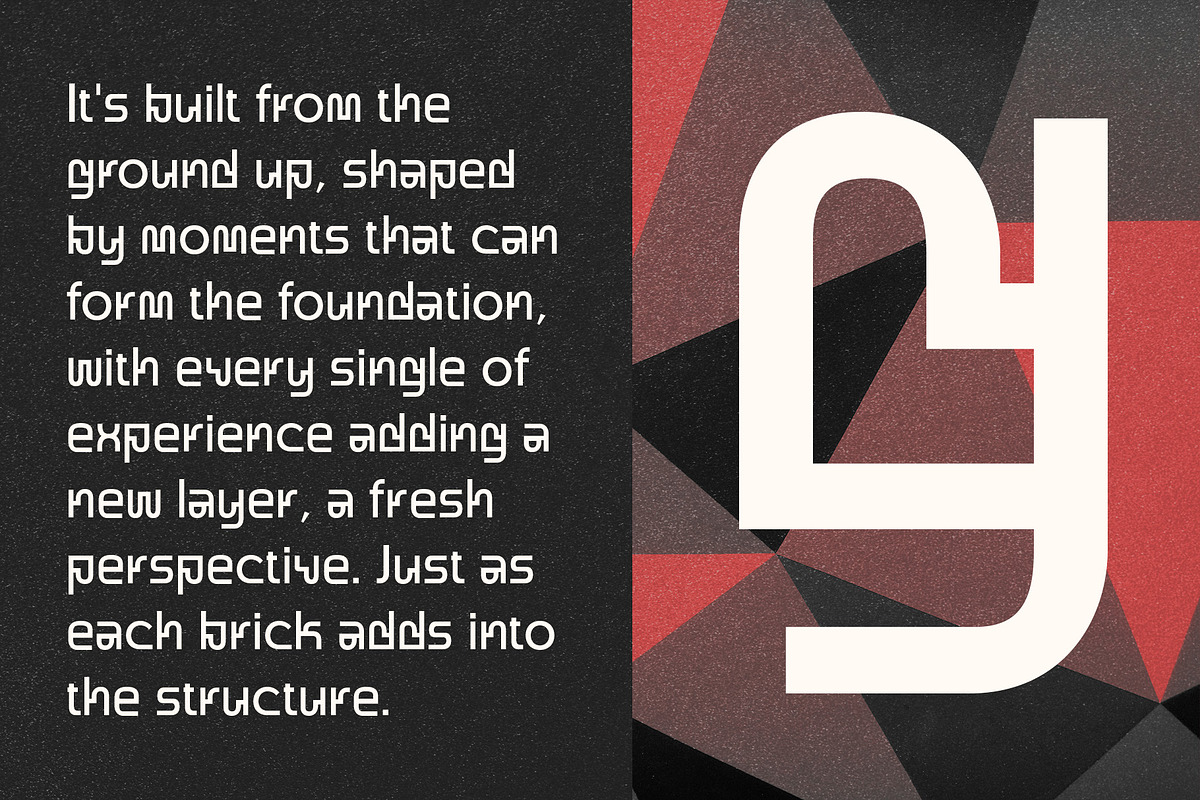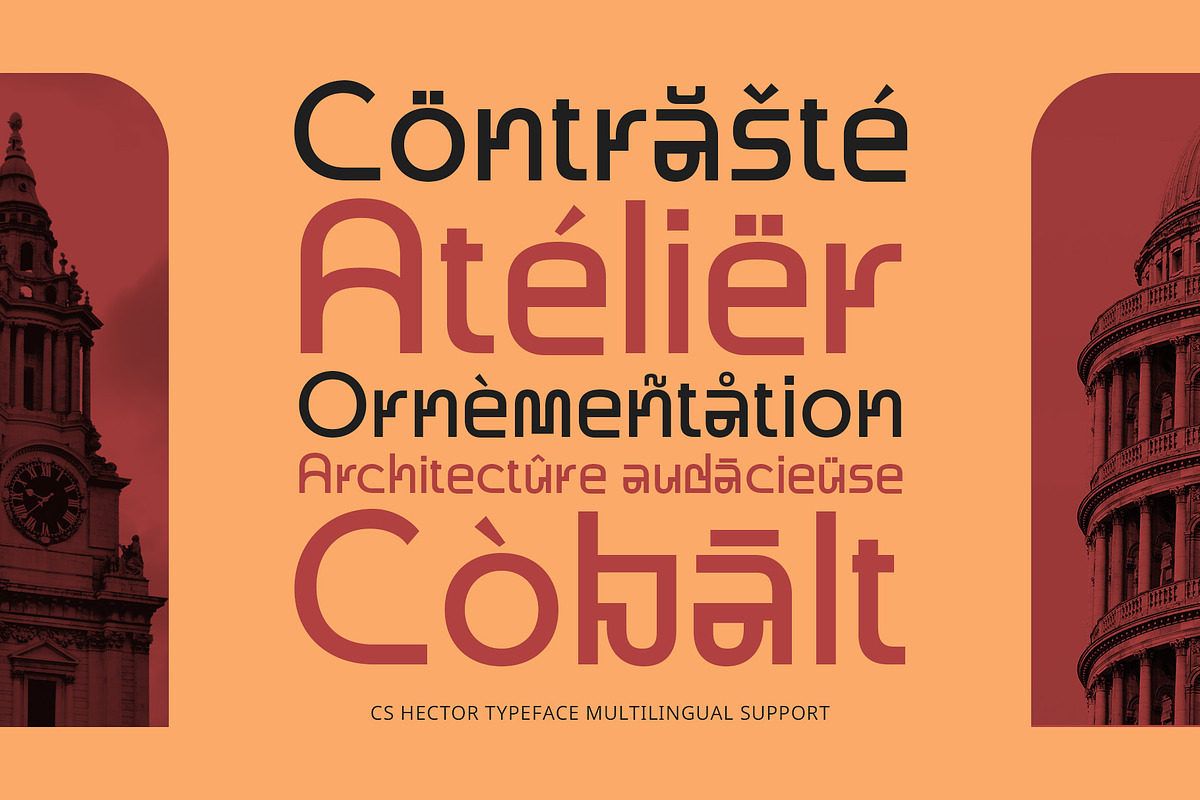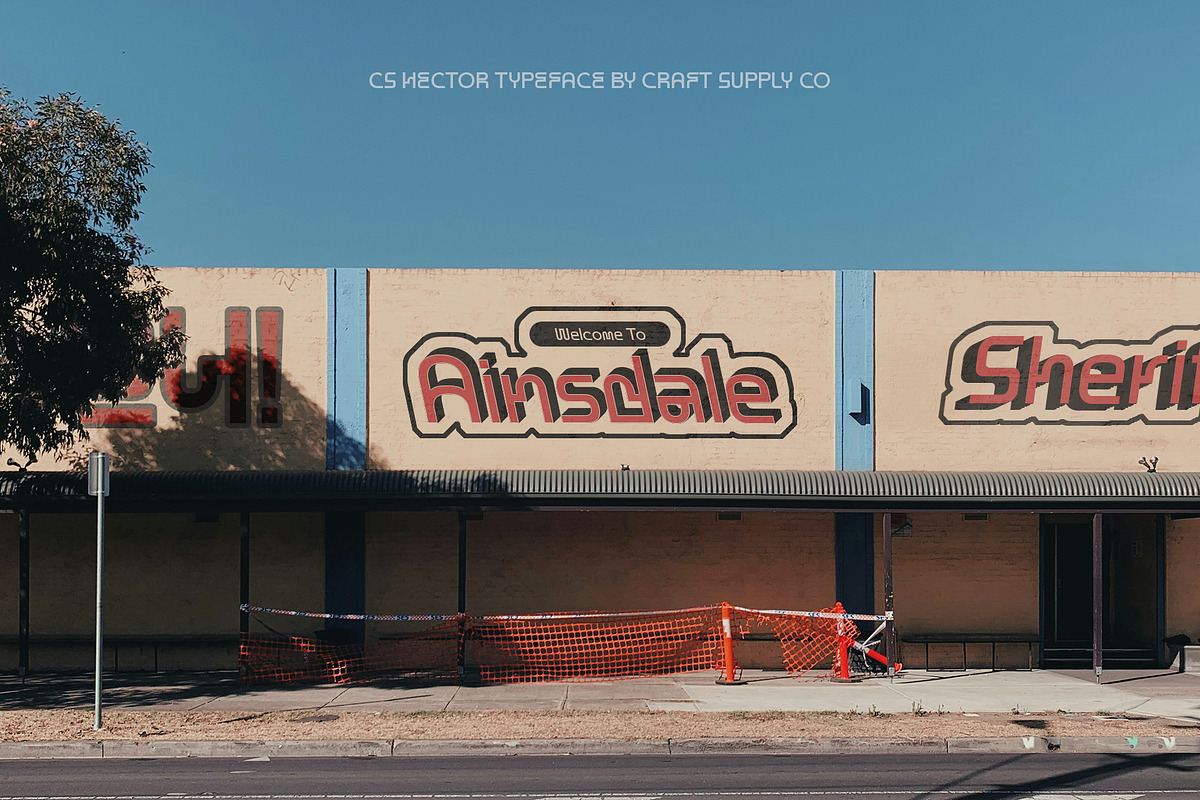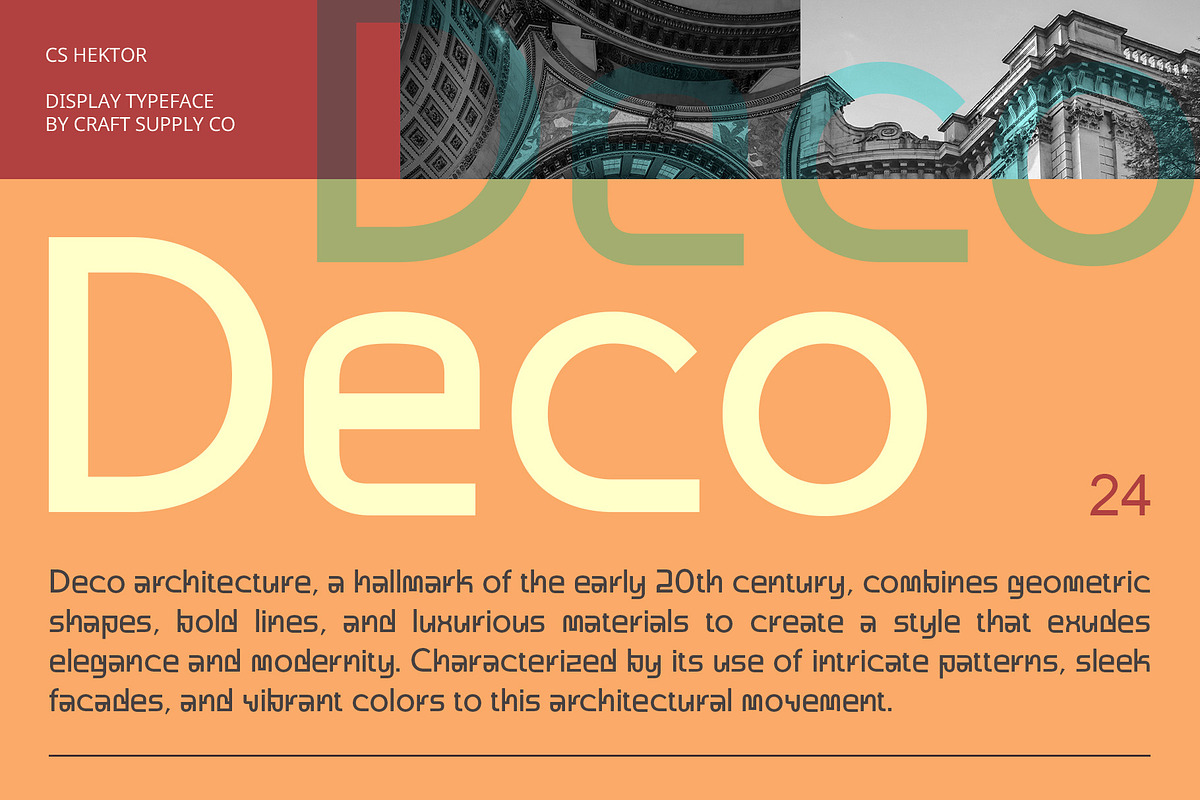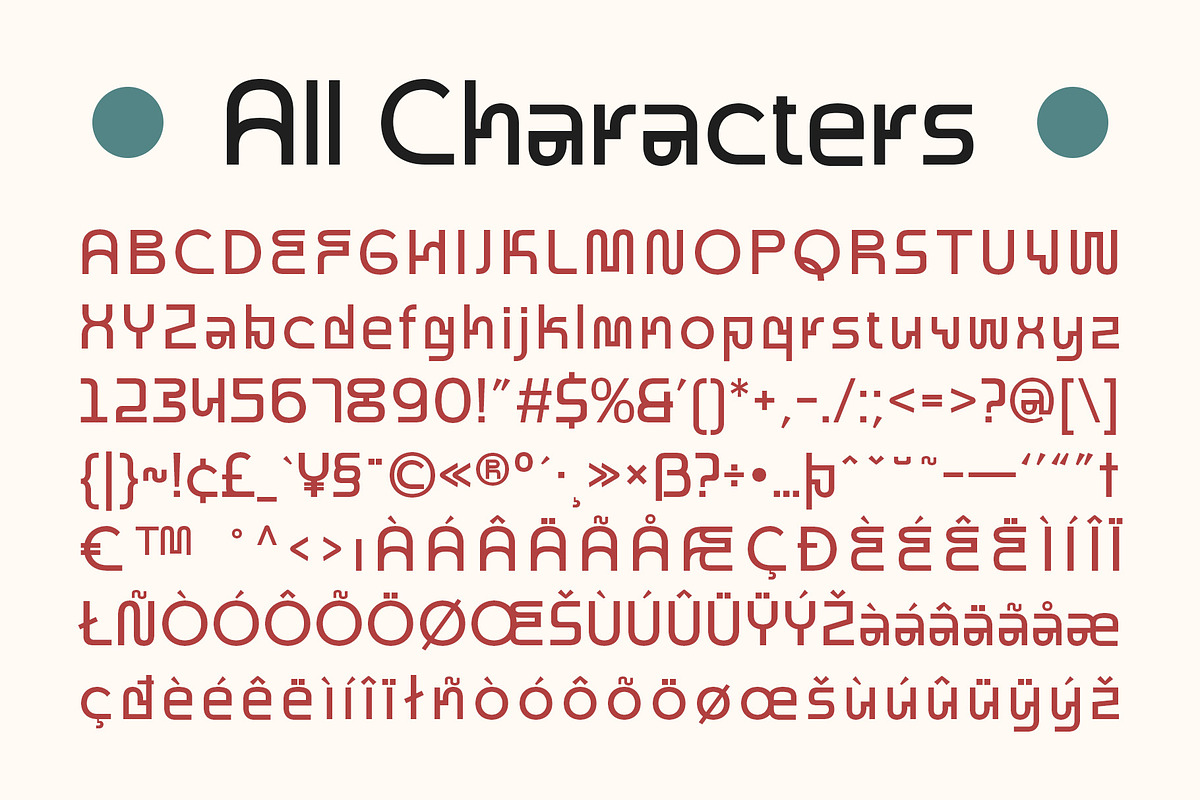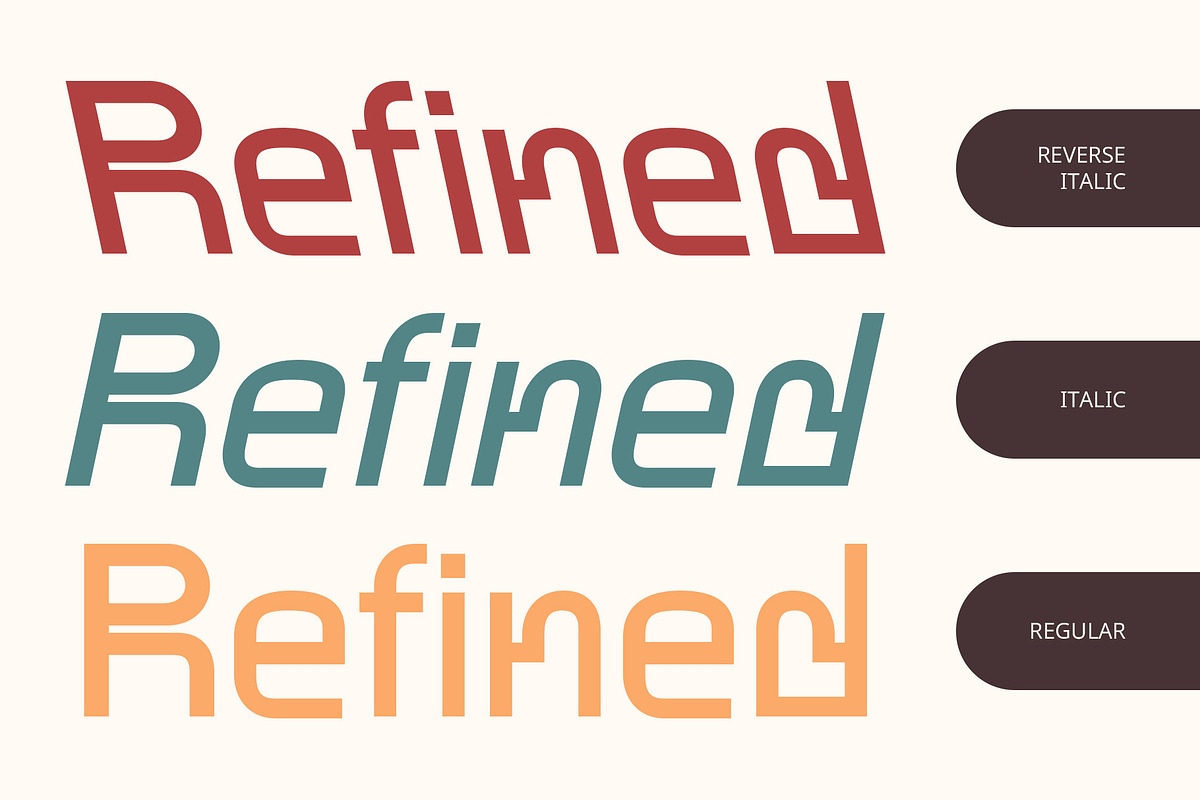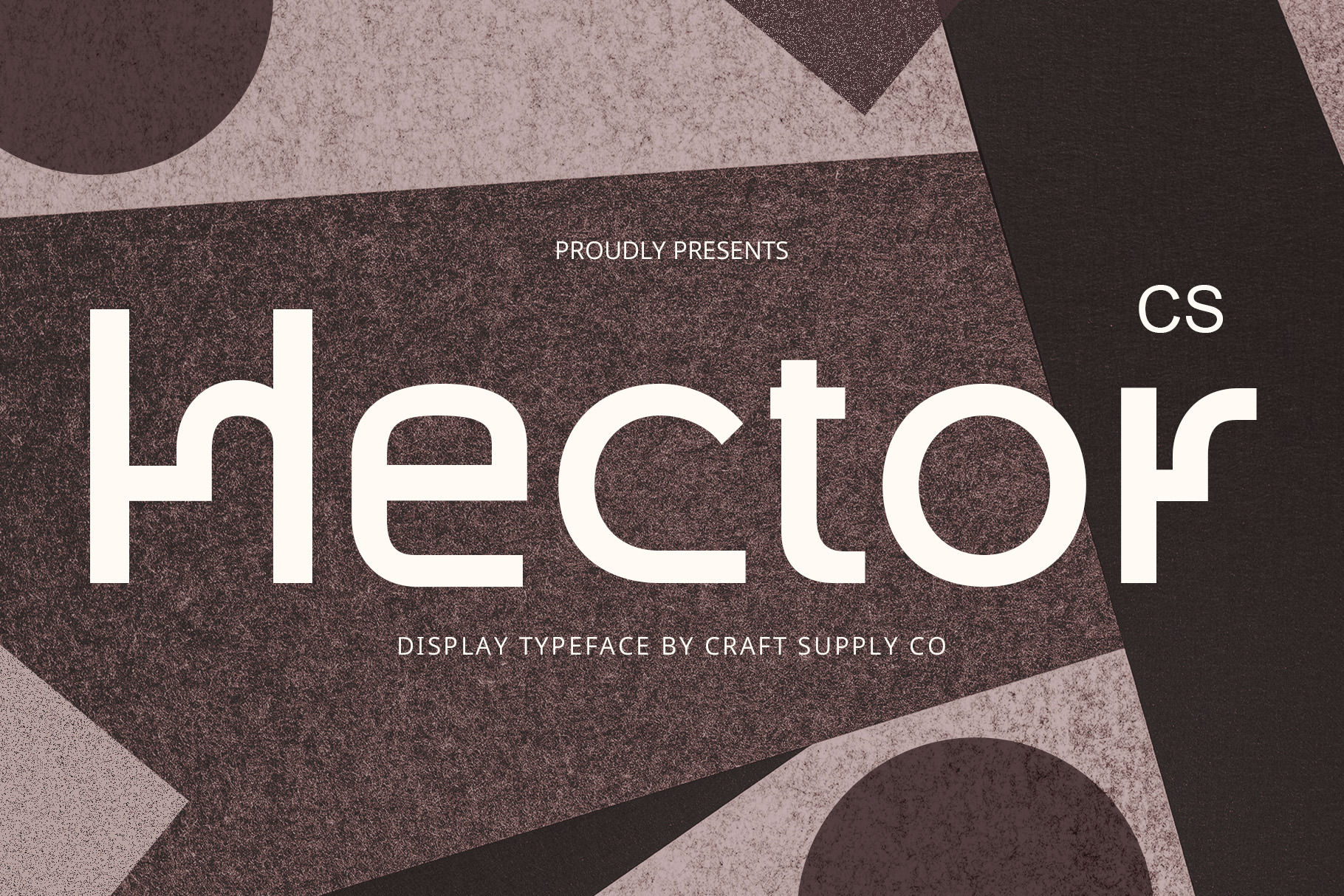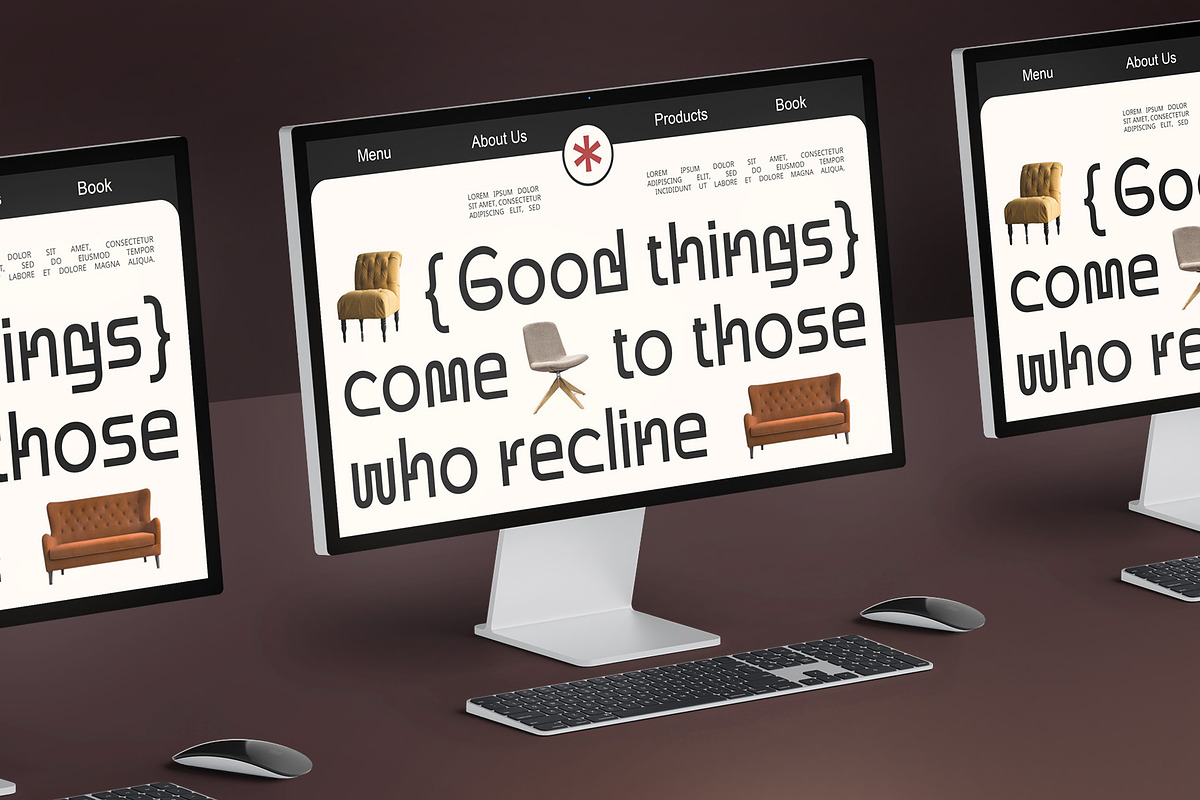
CS Hector – Art Deco Font
CS Hector Font: The Art Deco-Inspired Sans Serif Font
Elegant Design with Geometric Precision CS Hector is a modern sans serif display font that draws inspiration from the iconic Art Deco movement, featuring clean lines and geometric shapes that exude elegance and sophistication. This distinctive style captures the essence of luxury and refinement, making it an ideal choice for branding, advertising, and design projects that seek to convey a timeless aesthetic. The seamless blend of contemporary flair with classic charm ensures that CS Hector stands out in any context.
Perfect for Branding and Advertising With its bold yet refined design, CS Hector is tailored for high-impact branding and advertising projects. Its striking geometric forms create an immediate visual appeal, making it suitable for everything from luxury product packaging to upscale event invitations. The font’s elegance shines through in both print and digital formats, ensuring your message resonates with an air of sophistication.
Versatile for Various Design Applications CS Hector’s unique style lends itself to a variety of design applications. Whether you’re creating an elegant logo, a sophisticated editorial layout, or a luxurious promotional piece, this font adapts effortlessly to diverse projects. Its versatility ensures that it enhances the overall aesthetic while maintaining a polished and professional look.
- CS Hector Regular
- CS Hector Italic
- CS Hector Reverse Italic